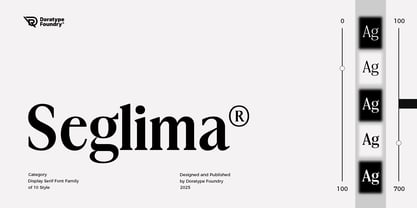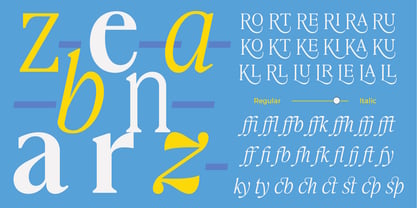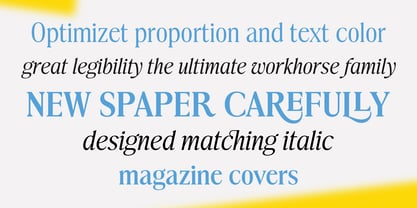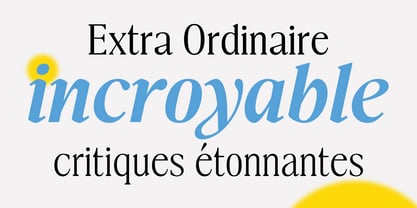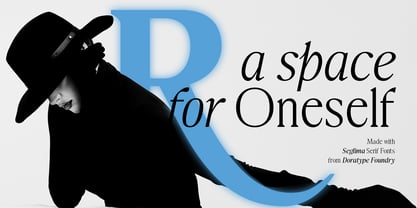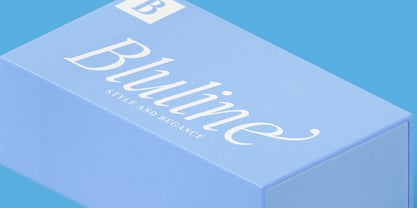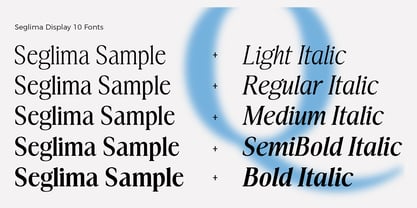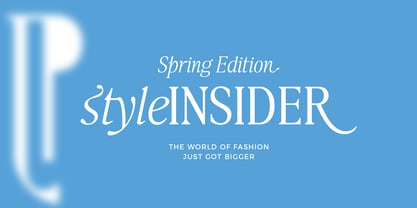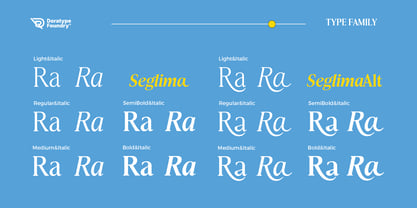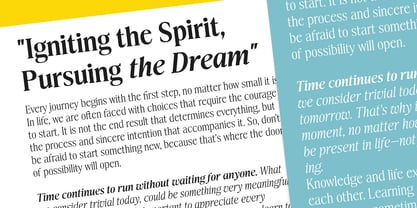
Seglima Variable
von Dora Typefoundry
Die Schriftfamilie Seglima Variable wurde von Zahratul Laila entworfen und von Dora Typefoundry veröffentlicht. Seglima Variable enthält 12 Stile und Familienpaketoptionen. Mehr über diese Familie
Seglima is a serif display font that exudes an elegant and bold impression in every character. With balanced letter proportions and subtle yet strong serif details, Seglima is able to provide a classic character that remains modern. has a distinctive sharp curve that makes its appearance unique and easily recognizable, making it suitable for titles, brand identities, and editorial publications that prioritize professional aesthetics.
Seglima comes in one font family with 10 different styles that allow for high flexibility in its use. The variety of thicknesses and variations in appearance make this font very adaptive, from minimalist designs to more expressive layouts. Seglima is the right choice for designers who want to combine the traditional feel of serif with a classy contemporary touch.
Designer: Zahratul Laila
Foundry: Dora Typefoundry